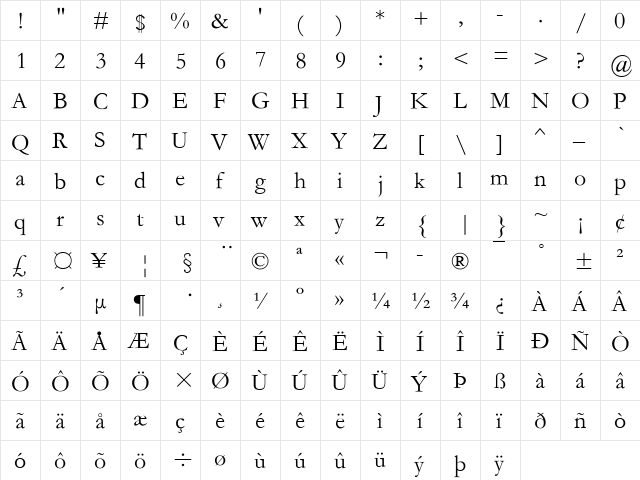
STSong Regular
Design Context for STSong Typeface
STSong is a composed and adaptable typeface that performs quietly and consistently across a wide range of design contexts.